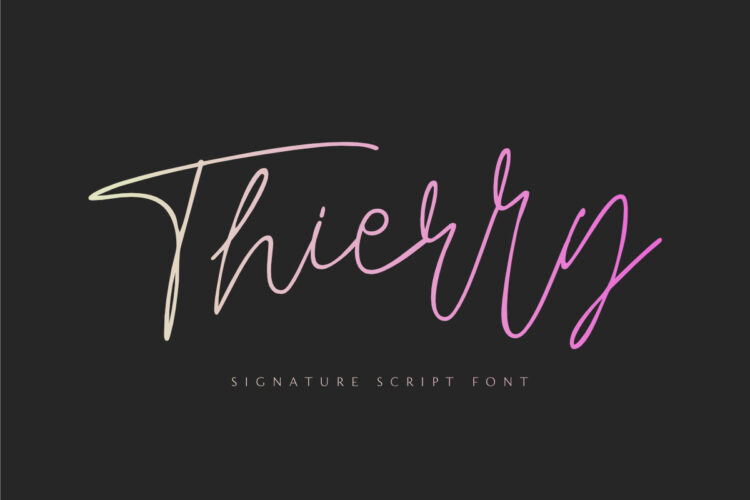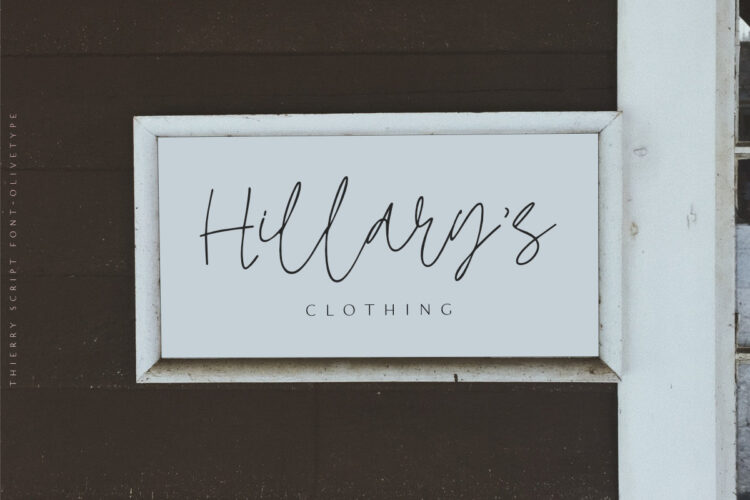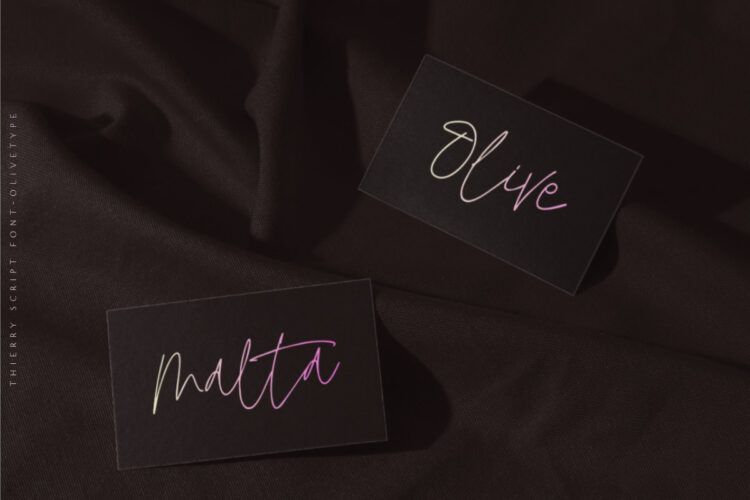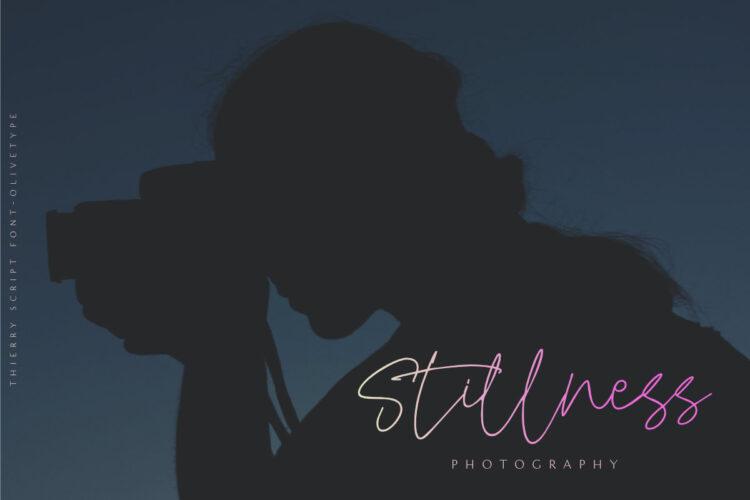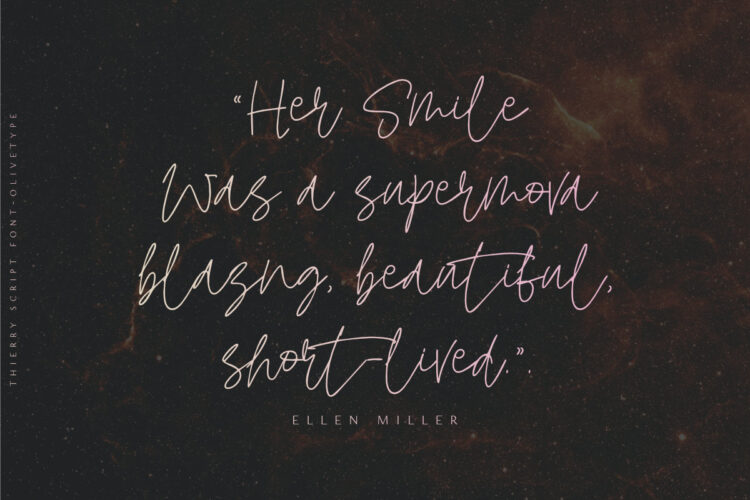
Thierry is an elegant signature script font. This versatile script font has a wide spectrum of applications ranging from logotype, product branding to headlines. Add a romantic feel to your next project with this modern calligraphy-styled font.